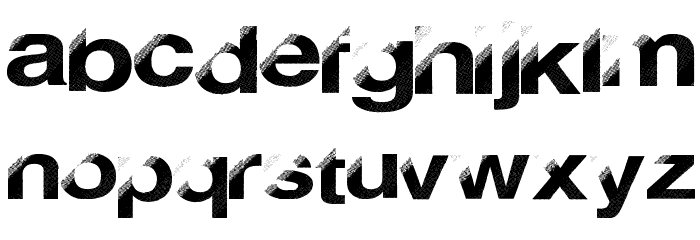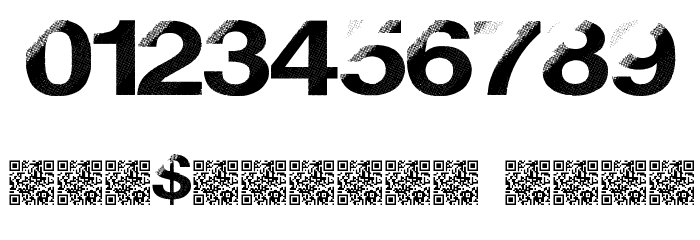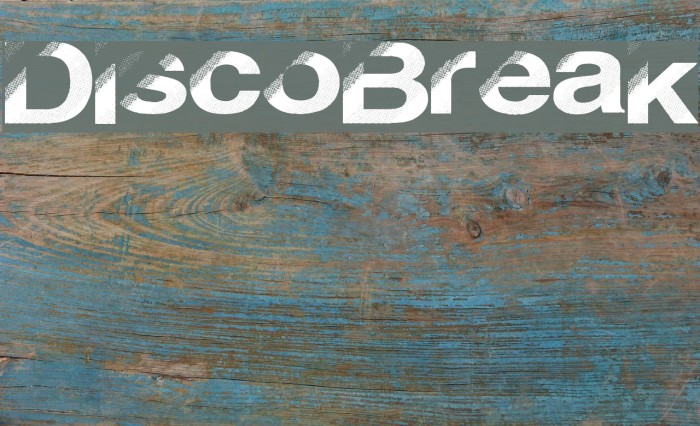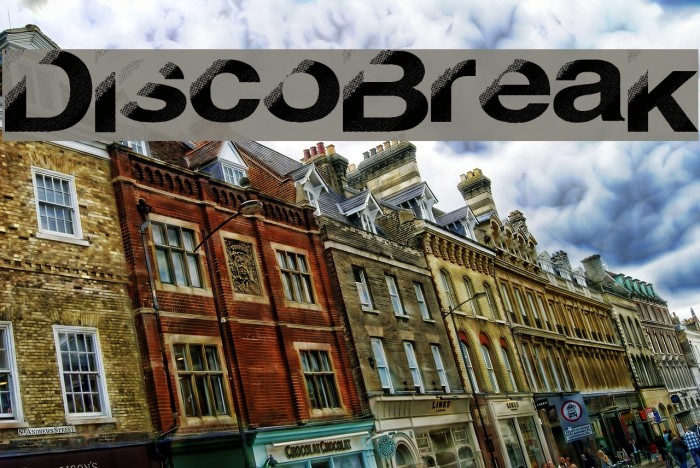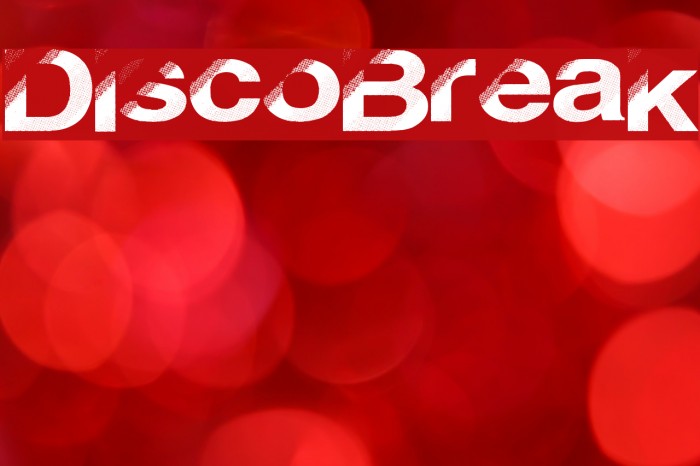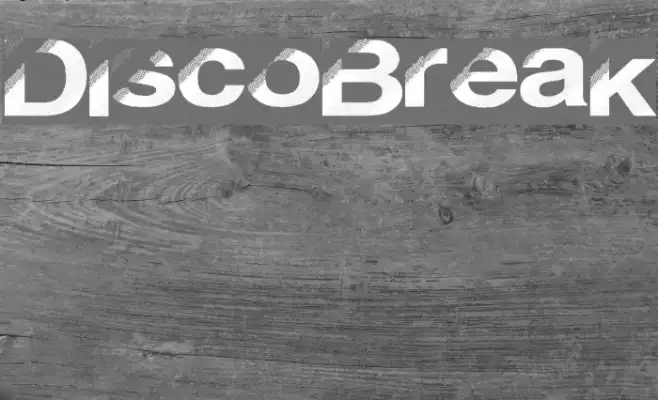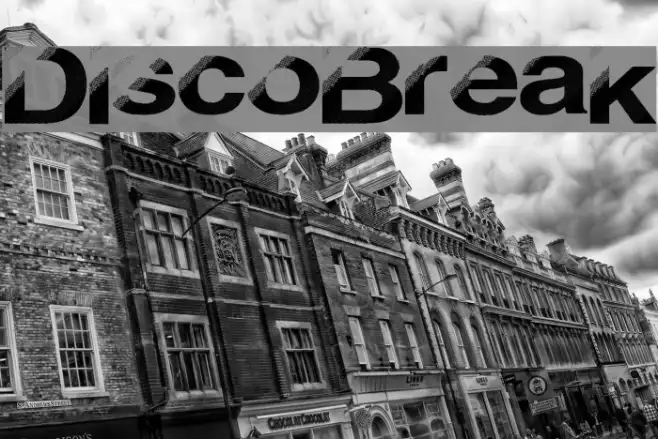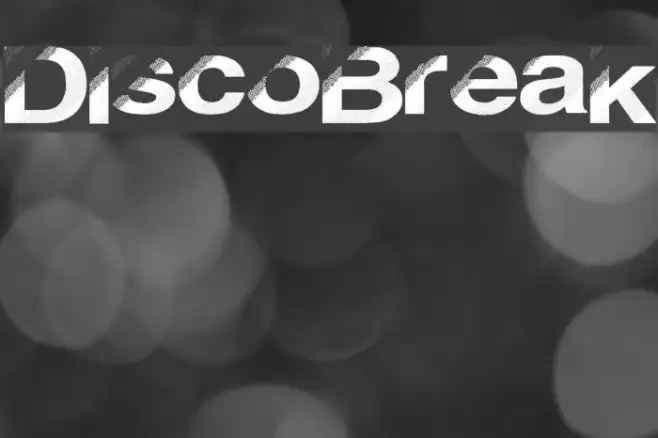
DiscoBreak Font
This font features a bold and dynamic style with a distinct distressed texture, giving it a unique, edgy appearance. The characters are wide and have a geometric sans-serif structure, which is enhanced by the rough, broken pattern overlaying each letter. This design choice adds a sense of movement and energy, reminiscent of urban and industrial aesthetics. The uppercase and lowercase letters maintain a consistent weight, while the numerals and special characters follow the same stylistic approach, ensuring uniformity across all glyphs. The font's boldness and texture make it ideal for attention-grabbing designs.
A bold, textured sans-serif font with an urban, distressed style.
- Proposed Projects: Ideal for music album covers, event posters, streetwear branding, and urban-themed graphics.
- Overall Style: Modern, Urban, Edgy
- Use Case: Headlines, Posters, Branding